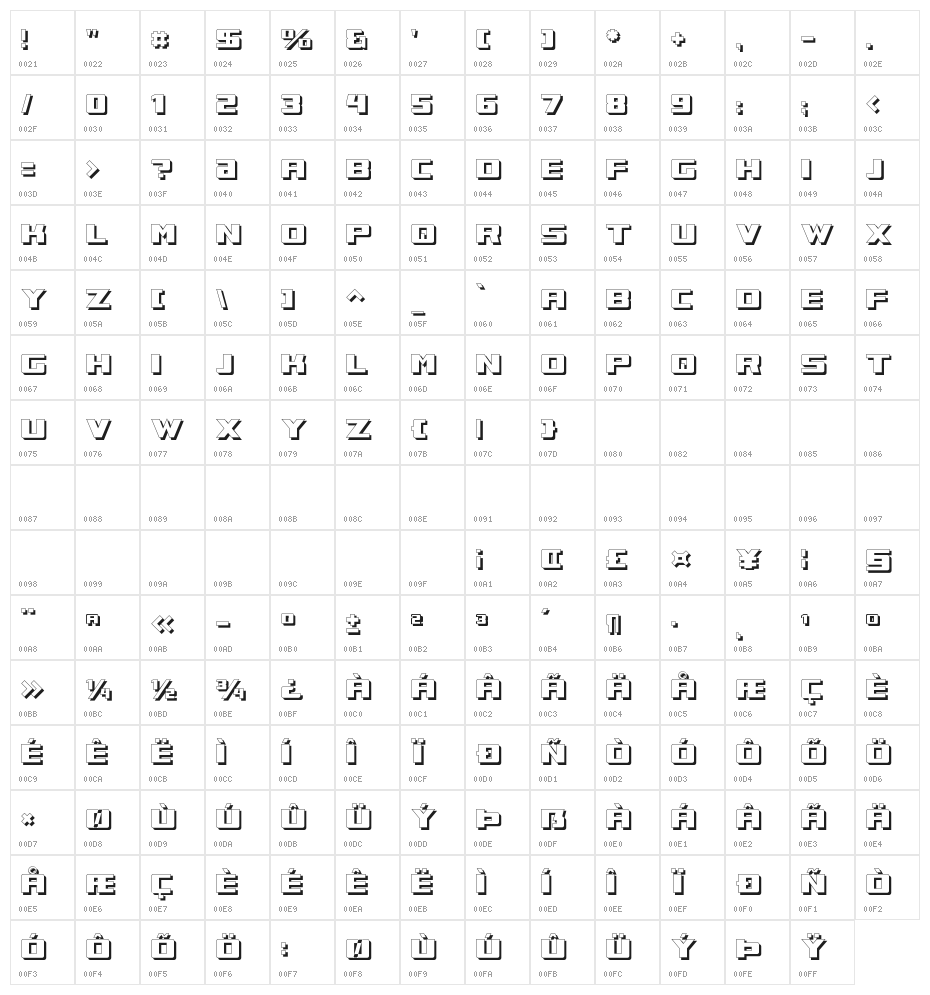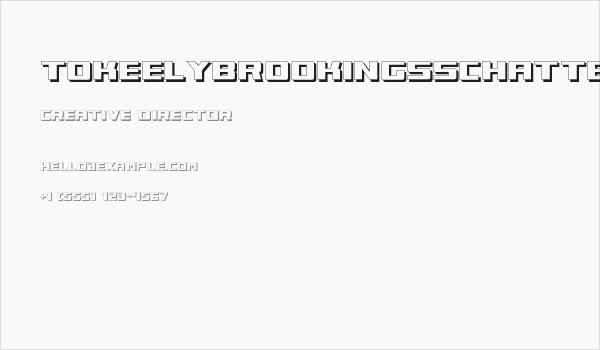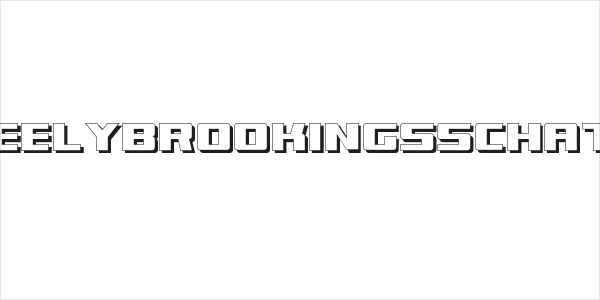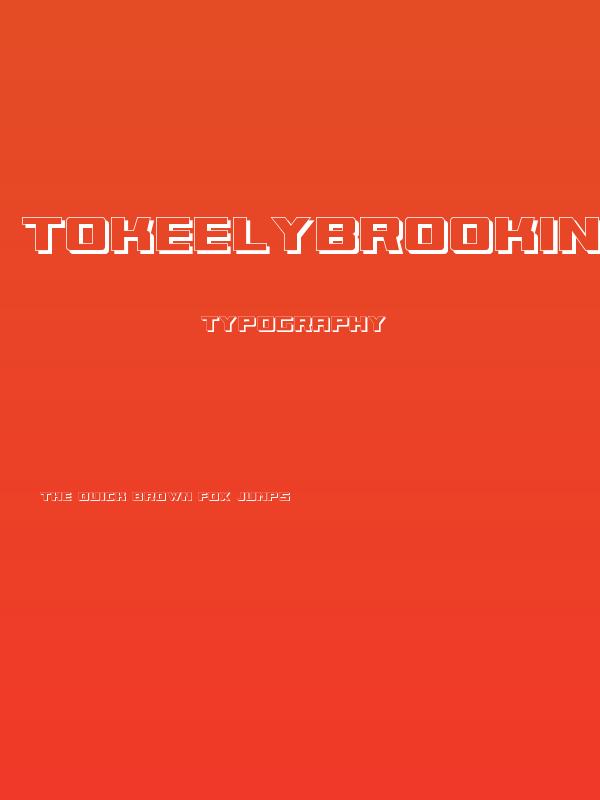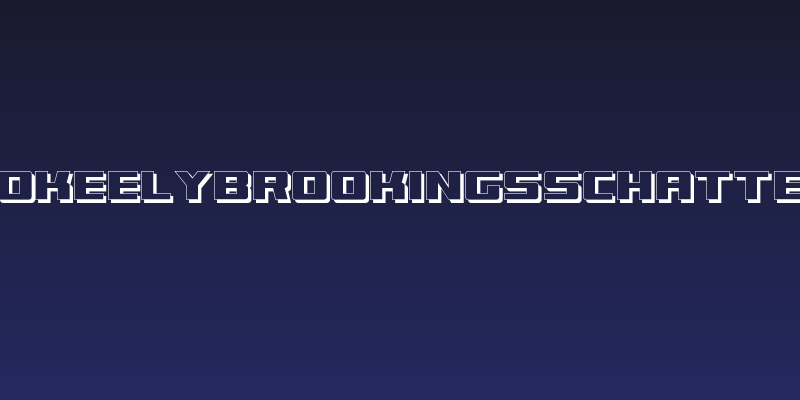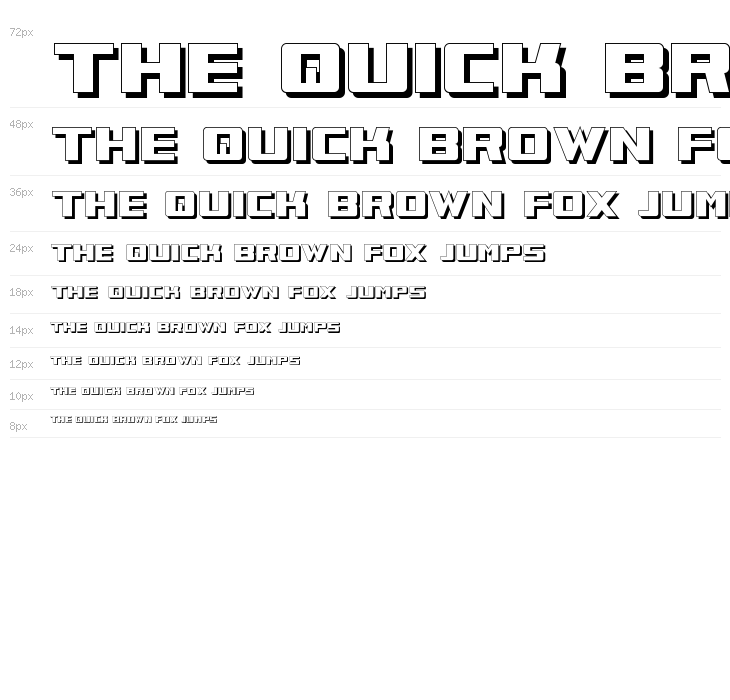
TokeelyBrookingsSchatten Font
TokeelyBrookingsSchatten Description
This font features a bold, three-dimensional appearance with a strong, geometric structure. The characters are outlined with a thick black shadow, giving them a distinct, blocky look that stands out. The uppercase letters are uniform in height, and the numbers share a similar style, ensuring consistency across all characters. The font's design is reminiscent of retro or arcade-style typography, making it ideal for projects that require a bold and impactful visual statement. The special characters maintain the same boldness and style, ensuring they integrate seamlessly with the rest of the font.
| Overall Style | Retro |
| Proposed Projects | Ideal for video game titles, retro-themed posters, and eye-catching headlines. |